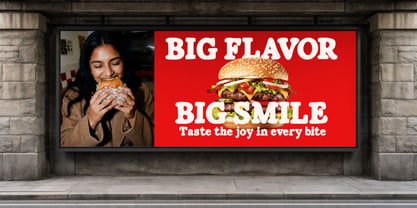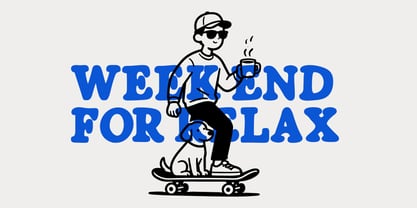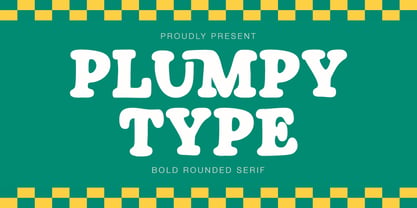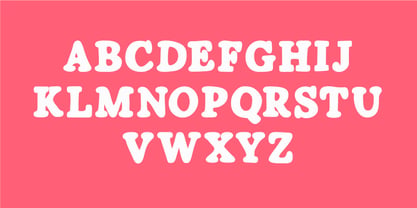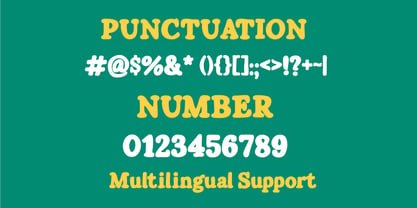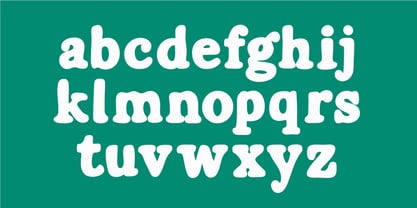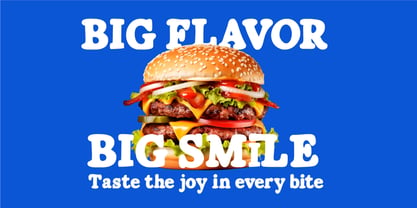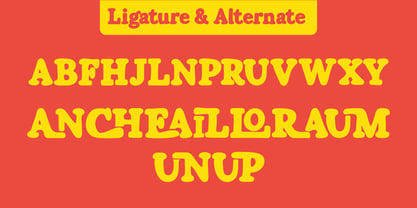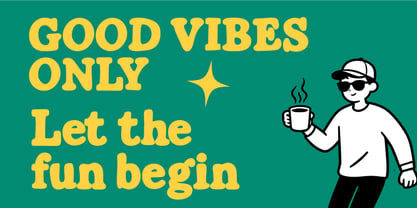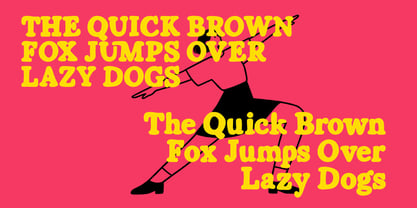
Plumpy Type
by Elevra
The Plumpy Type Font Family was designed by Wirandi Limansyah Zendrato and published by Elevra. Plumpy Type contains 1 styles. More about this family
Plumpy Type is a bold rounded serif font designed to deliver warmth, strength, and friendly character in every letter. Featuring thick strokes, soft curves, and smooth serif details, this typeface combines classic serif structure with a modern, playful twist. The rounded edges create a welcoming and approachable feel while maintaining strong readability and visual impact. Plumpy Type works beautifully for branding, packaging, posters, logos, editorial headlines, merchandise, and social media graphics. Its bold presence makes it ideal for designs that need to feel confident yet friendly. Whether you're building a modern brand identity or creating eye-catching promotional materials, Plumpy Type adds charm, personality, and strong typographic presence to your project. If you're looking for a bold serif font with soft curves and standout character, Plumpy Type is the perfect choice.
Designers: Wirandi Limansyah Zendrato
Foundry: Elevra